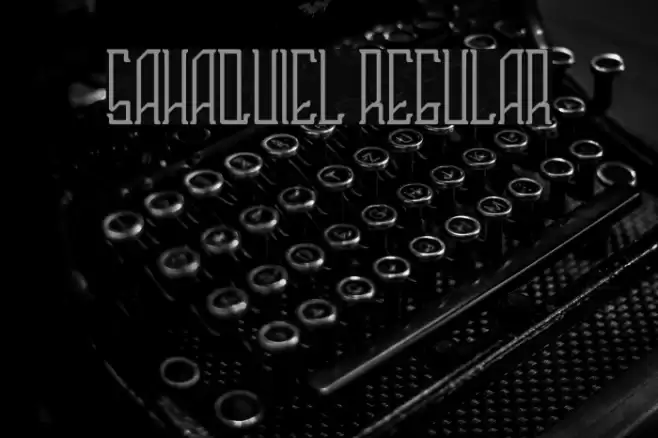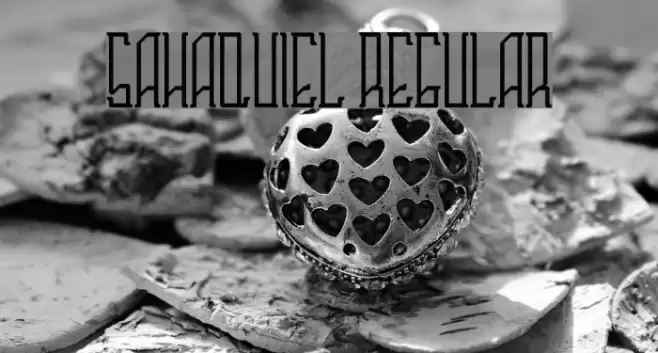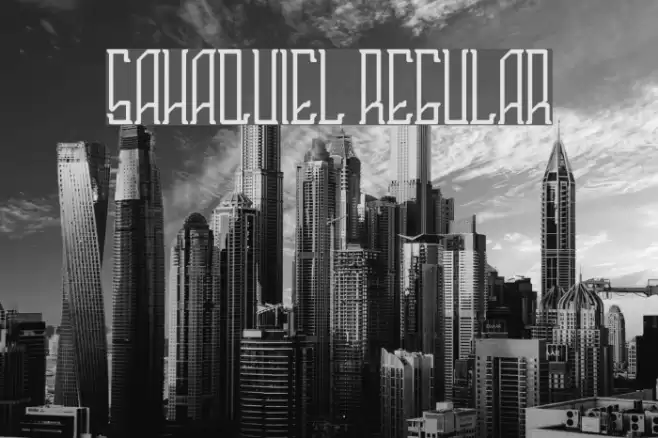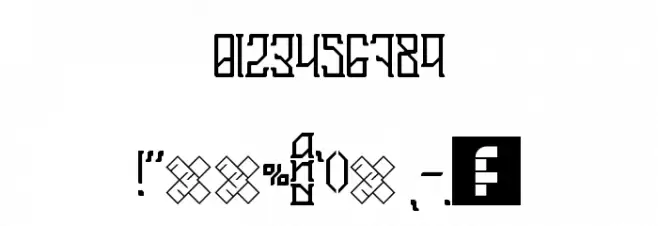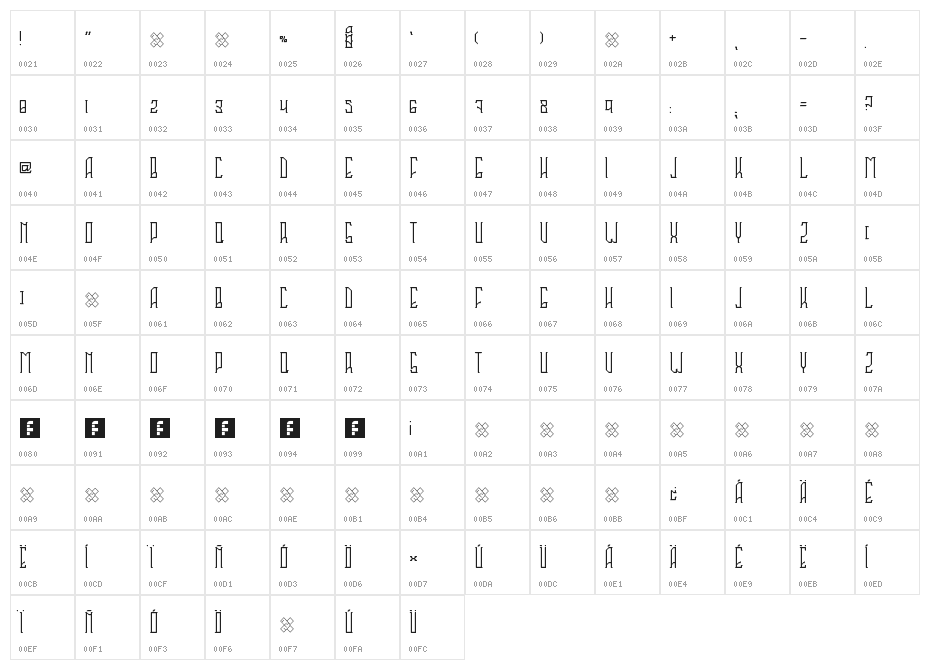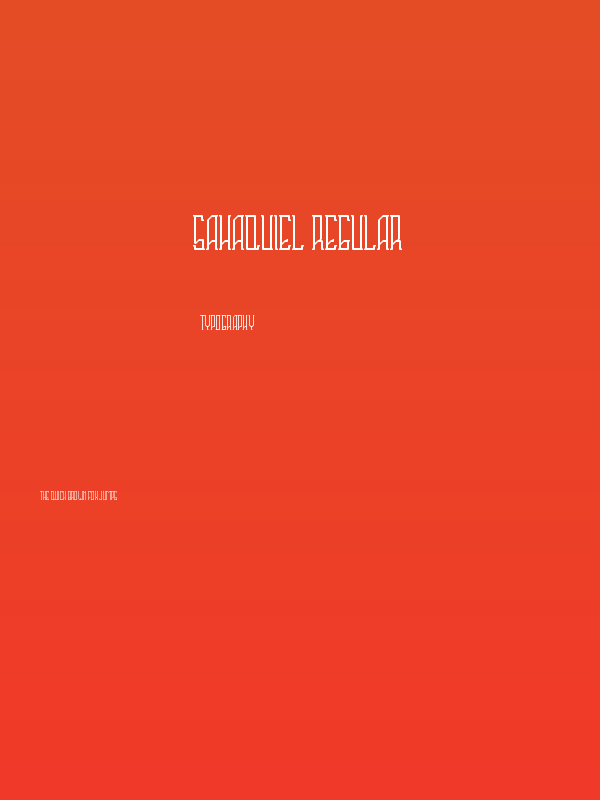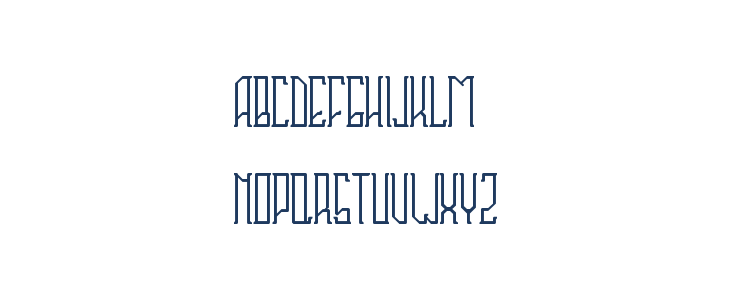
Sahaquiel Regular Font
Sahaquiel Regular Description
This font features a unique, geometric design with angular edges and a futuristic aesthetic. The characters are constructed with a series of straight lines and sharp angles, giving it a distinct, mechanical appearance. The uppercase and lowercase letters maintain a consistent height, contributing to a uniform look. Numbers and special characters follow the same design principles, ensuring cohesion across all glyphs. The font's style is reminiscent of digital or sci-fi themes, making it stand out in modern design contexts.
A geometric, angular font with a futuristic, mechanical style from Uncategorized fonts.
- Proposed Projects: Ideal for sci-fi themed projects, digital interfaces, video game titles, and modern branding.